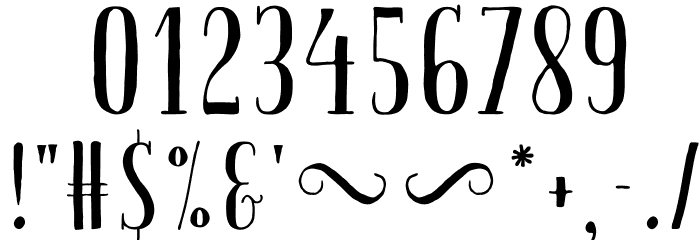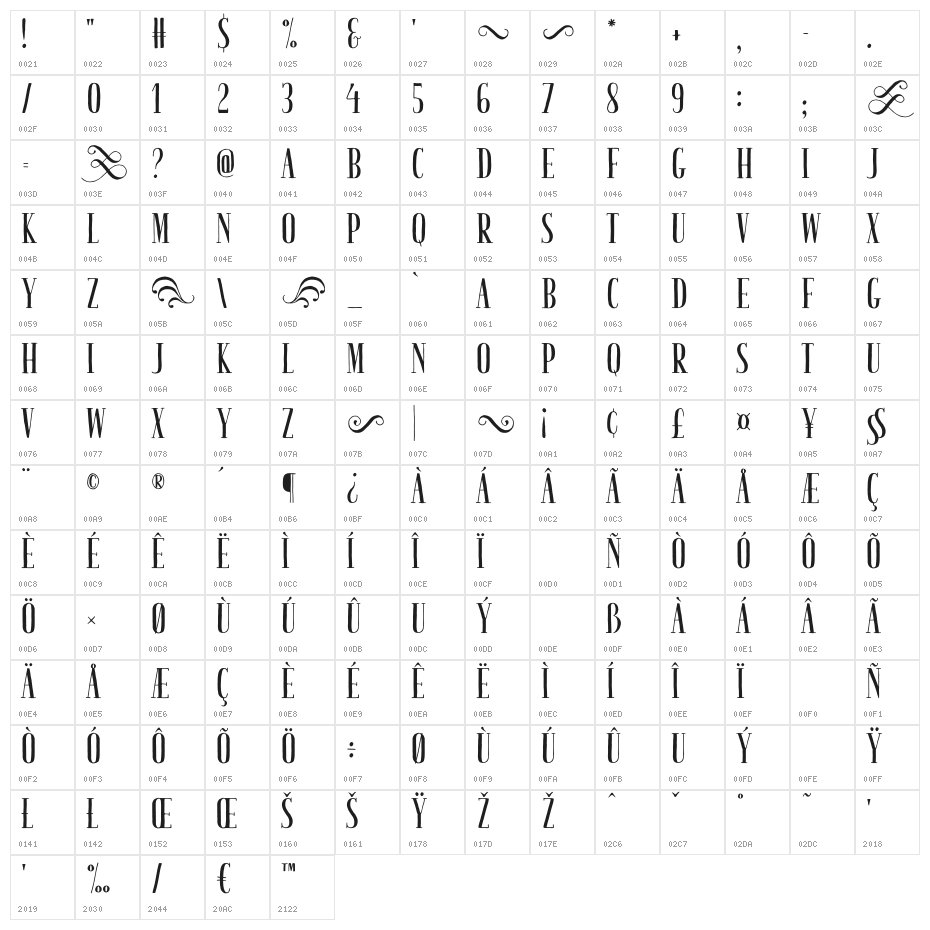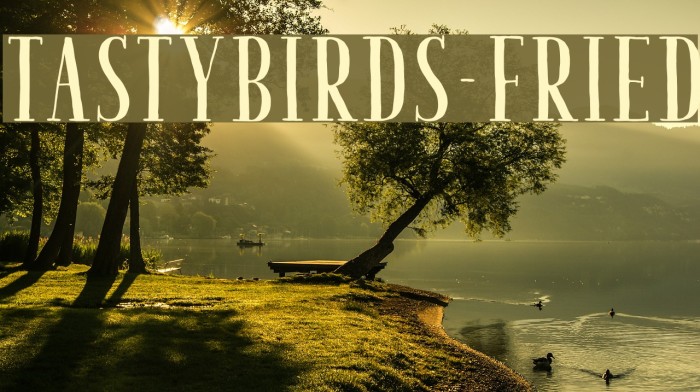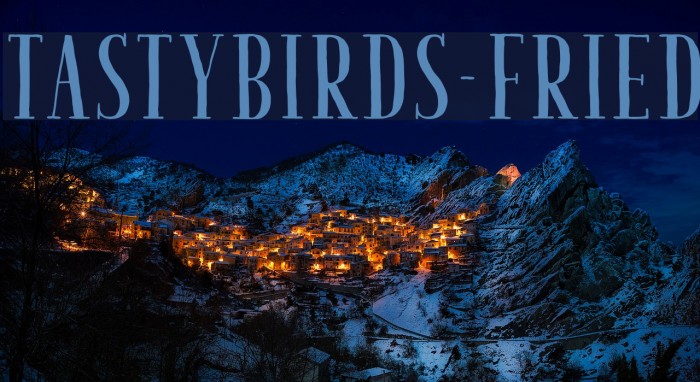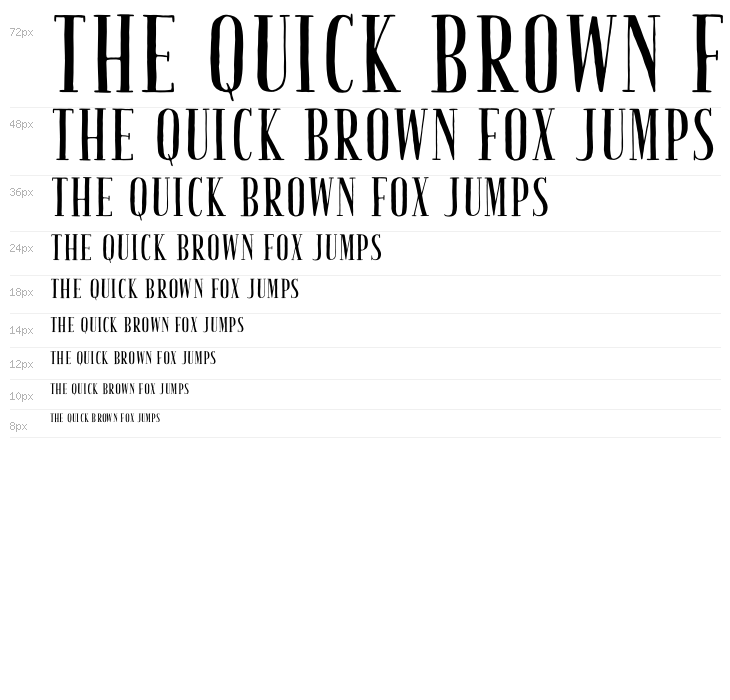
TastyBirds-Fried Font
TastyBirds-Fried Description
This font features a unique blend of vintage and modern aesthetics, characterized by its tall, narrow letterforms with a slight slant. The strokes are uneven, giving it a hand-drawn appearance, while maintaining a sense of elegance and sophistication. The uppercase letters are particularly elongated, adding a dramatic flair, while the lowercase letters maintain a more traditional form. The numbers are consistent with the overall style, offering a cohesive look. Special characters are creatively designed, adding to the font's decorative appeal.
Overall StyleVintage, Decorative
Proposed ProjectsIdeal for branding projects, vintage-themed designs, posters, and packaging.